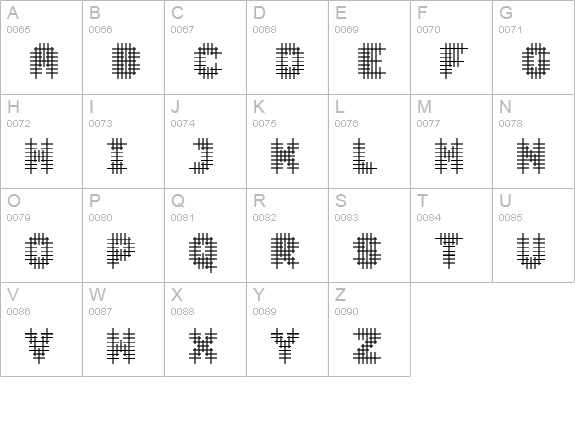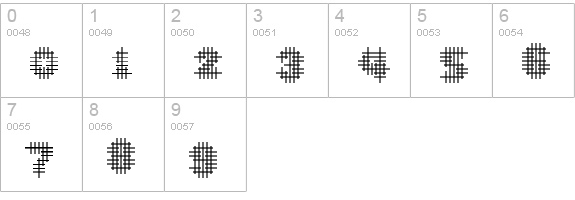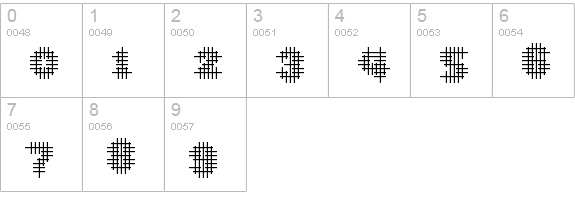
Overcross Font Details
Overcross font is a modern and stylish typeface that perfectly blends elegance with a touch of edginess. Its sharp lines and unique letterforms make it a versatile choice for a wide range of design projects, from branding to editorial design. The sleek and sophisticated look of Overcross font is sure to make your text stand out and leave a lasting impression. What's even better is that Overcross font is completely free to download at FontsMarket.com. This means you can easily access this stunning typeface and use it in your projects without any cost. Whether you're a professional designer or just looking to add a modern twist to your personal projects, Overcross font is the perfect choice. Download it today and elevate your designs with this sleek and stylish typeface.